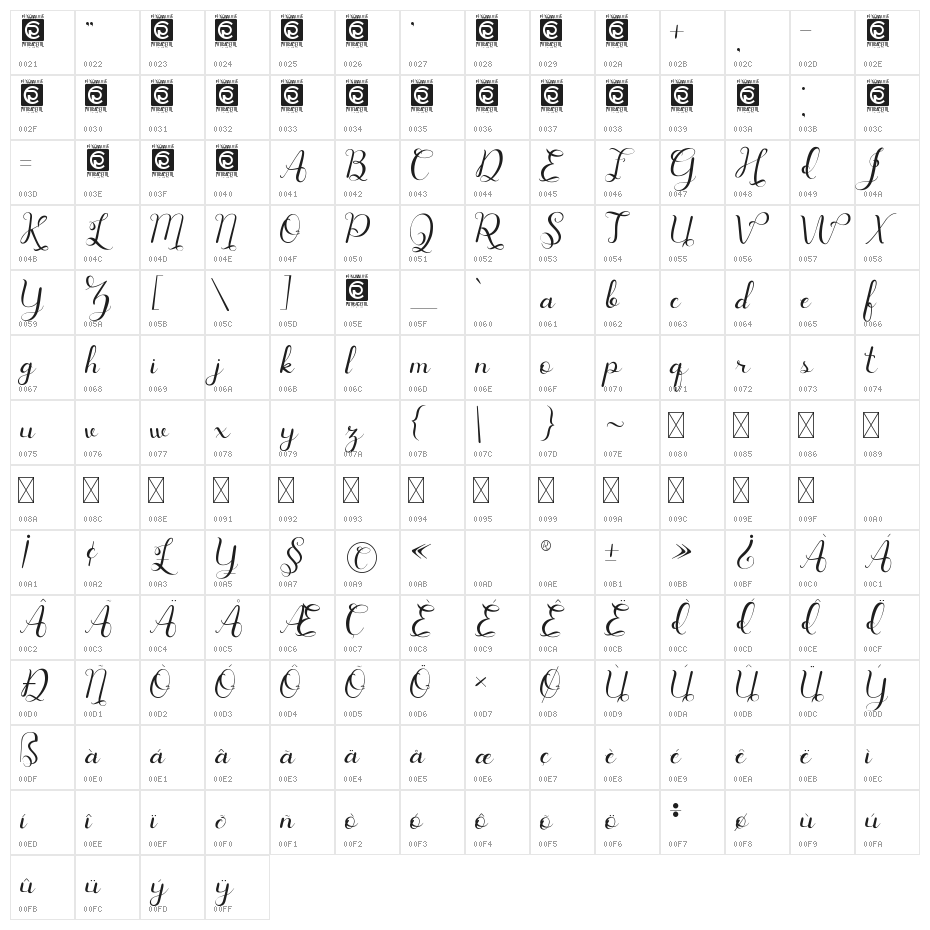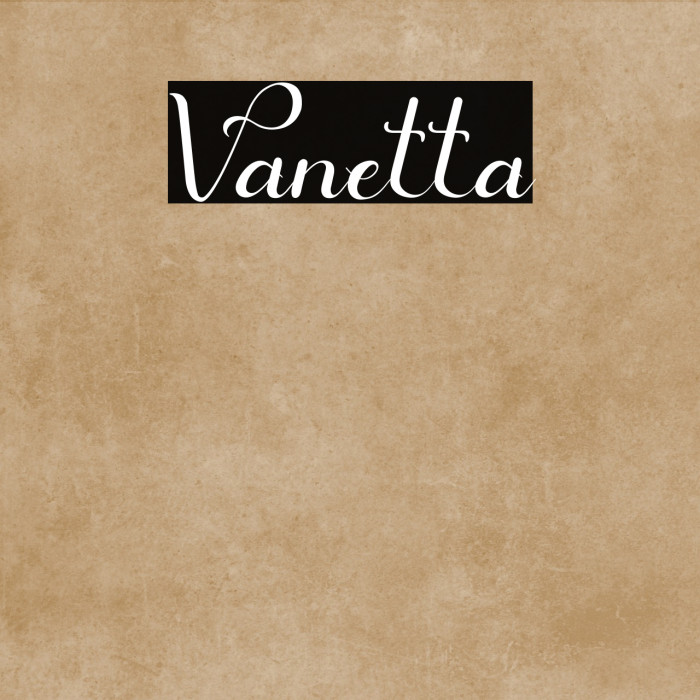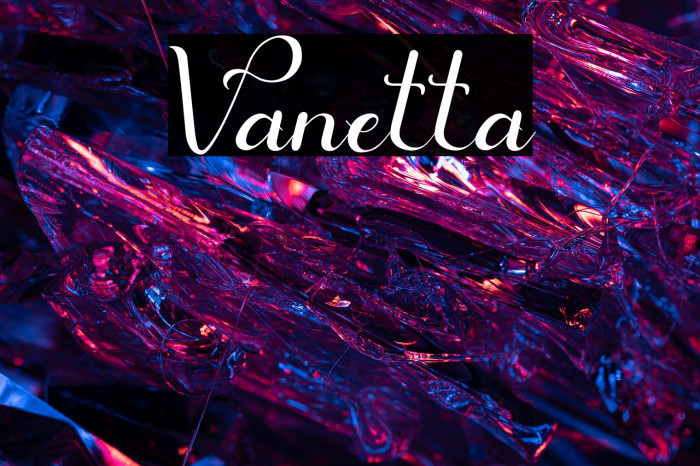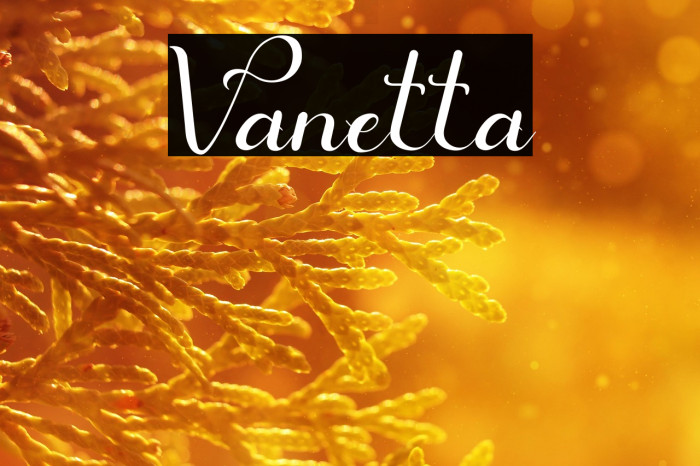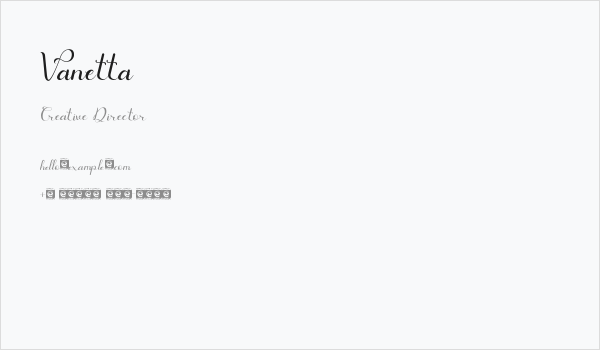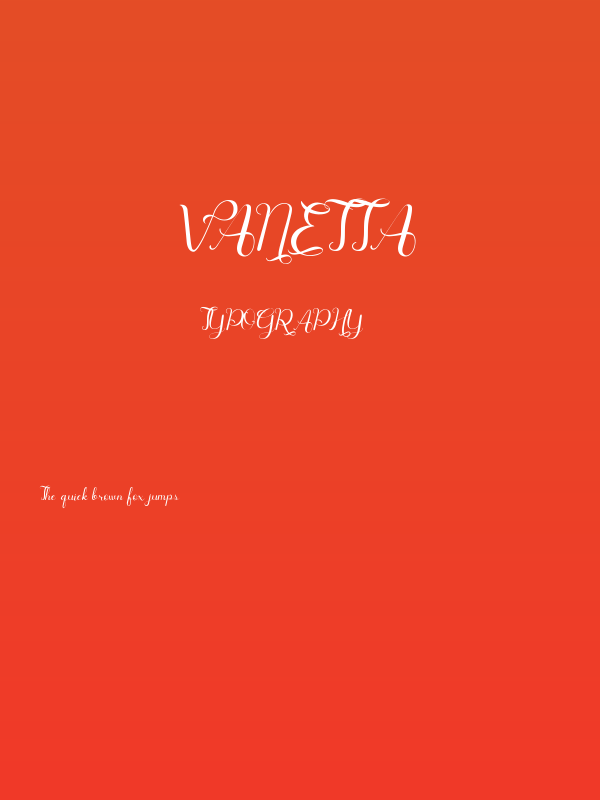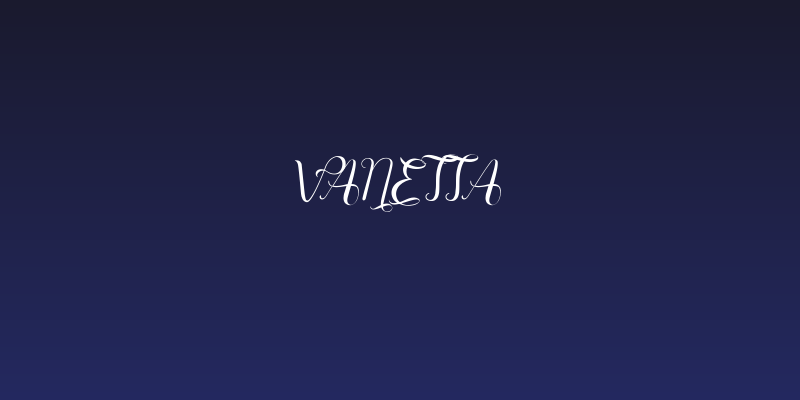
Vanetta Font
Vanetta Description
This elegant script font features flowing, interconnected letters with a classic and sophisticated appearance. The uppercase letters are adorned with graceful swashes and loops, adding a touch of flair and refinement. The lowercase letters maintain a consistent style, with smooth curves and a harmonious flow that enhances readability. The numerals and special characters are designed to match the overall aesthetic, providing a cohesive look across all text elements. This font is perfect for projects that require a touch of elegance and sophistication, such as wedding invitations, formal event programs, or luxury branding.
| Overall Style | Classic |
| Use Case | Logos, Invitations, Branding |
| Proposed Projects | Ideal for wedding invitations, formal event programs, luxury branding, and elegant stationery. |